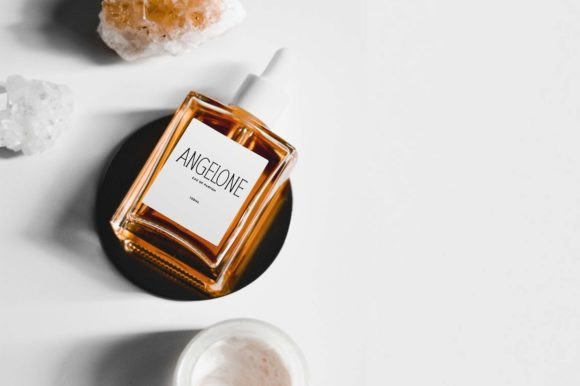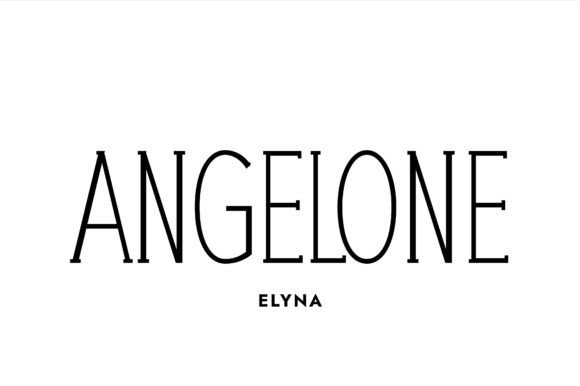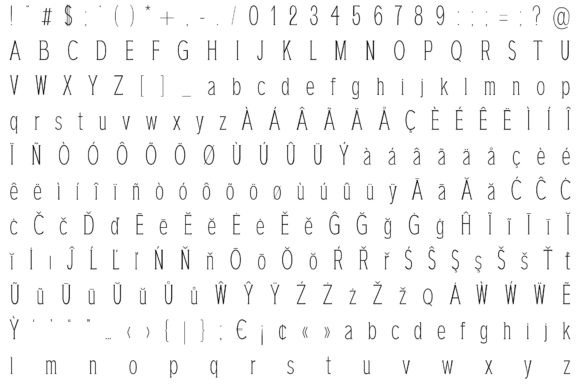
Introducing Angelone: The Elegant Slab Serif Typeface for Creative Designs
In the world of typography, a well-chosen font can elevate a design from ordinary to extraordinary. For designers and crafters seeking a typeface that exudes elegance and sophistication, Angelone is an excellent choice. This thin, elegant, and delicate slab serif font is specifically designed to be used as a display slab serif, making it perfect for a variety of creative projects.
What is Angelone Font?
Angelone is a carefully crafted typeface that boasts a unique blend of refinement and subtlety. Its slender lines and delicate curves create a sense of luxury and poise, making it an ideal choice for designs that require a touch of sophistication. Whether you’re working on a perfume label, magazine cover, or social media post, Angelone is sure to add a dash of elegance to your creation.
Characteristics of Angelone Font
So, what sets Angelone apart from other typefaces? Here are a few key characteristics that make it an excellent choice for designers and crafters:
- Thin and delicate: Angelone’s slender lines create a sense of refinement and elegance, making it perfect for designs that require a touch of sophistication.
- Elegant slab serif: The font’s slab serif design adds a touch of classic sophistication to any project, making it ideal for use in high-end designs.
- Display slab serif: Angelone is specifically designed to be used as a display slab serif, making it perfect for use in headlines, titles, and other display text.
Use Cases for Angelone Font
So, where can you use Angelone to add a touch of elegance to your designs? Here are a few ideas to get you started:
- Perfume and cosmetics labels: Angelone’s elegant design makes it perfect for use in perfume and cosmetics labels, adding a touch of luxury and sophistication to your products.
- Magazine covers: Use Angelone to create eye-catching magazine covers that exude elegance and refinement.
- Posters and manifests: Angelone’s bold yet delicate design makes it perfect for use in posters and manifests, adding a touch of sophistication to your promotional materials.
- Flyers and brochures: Use Angelone to create eye-catching flyers and brochures that showcase your brand’s elegance and refinement.
- Social media posts: Add a touch of elegance to your social media posts with Angelone, making your brand stand out in a crowded online landscape.
- Fashion designs: Angelone’s elegant design makes it perfect for use in fashion designs, adding a touch of sophistication and luxury to your brand.
Why Choose Angelone Font?
So, why should you choose Angelone for your design projects? Here are a few compelling reasons:
- Elegance and sophistication: Angelone’s delicate design adds a touch of elegance and sophistication to any project, making it perfect for high-end designs.
- Versatility: Angelone can be used in a variety of contexts, from perfume labels to social media posts, making it a versatile addition to your font library.
- Easy to read: Despite its delicate design, Angelone is easy to read, making it perfect for use in body text as well as display text.
In conclusion, Angelone is an excellent choice for designers and crafters seeking a typeface that exudes elegance and sophistication. Its thin, delicate design makes it perfect for use in a variety of creative projects, from perfume labels to social media posts. With its versatility, elegance, and ease of use, Angelone is sure to become a go-to font in your design arsenal.